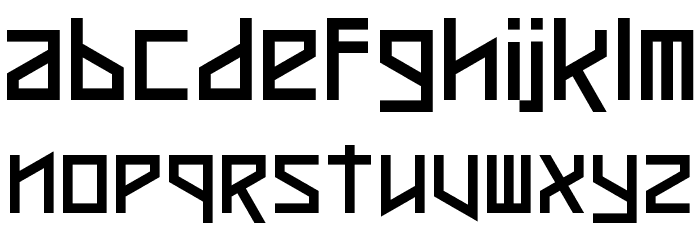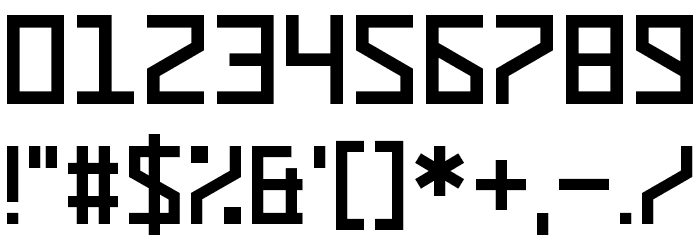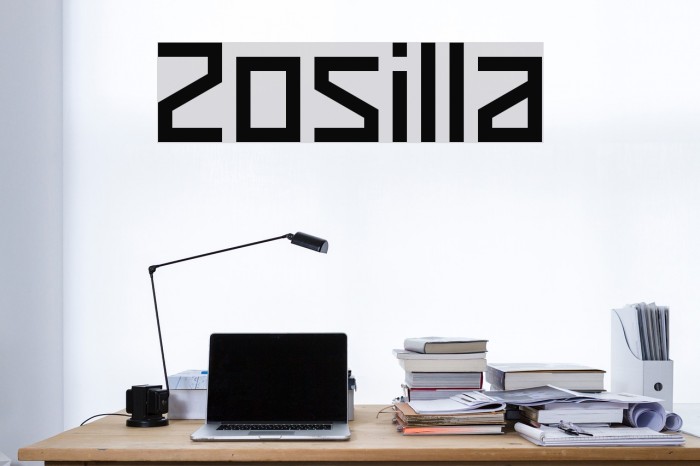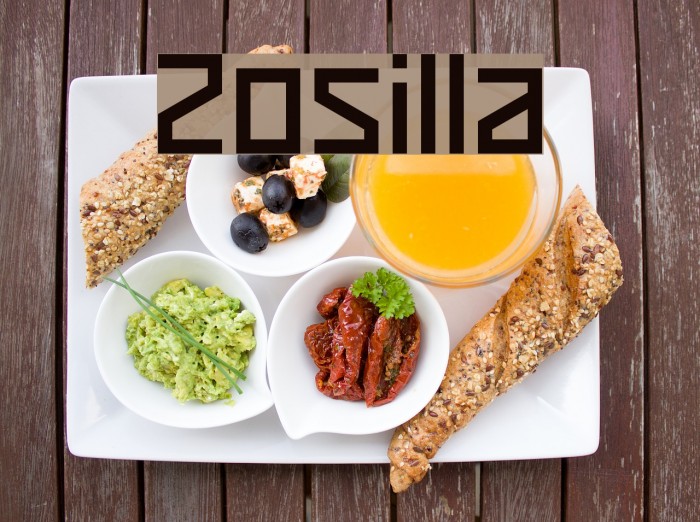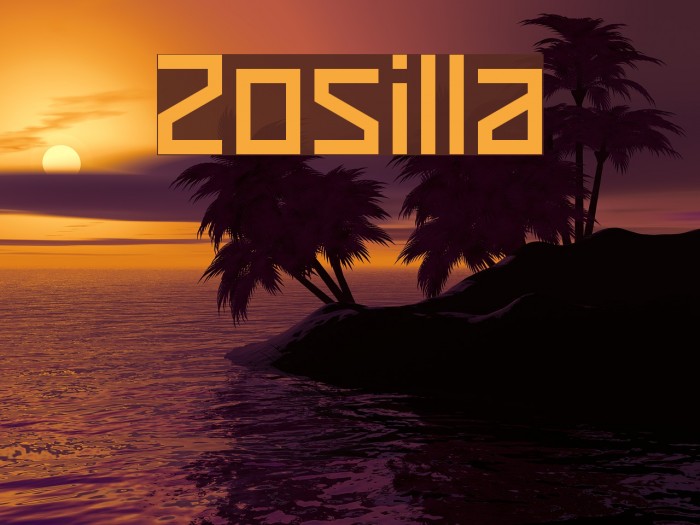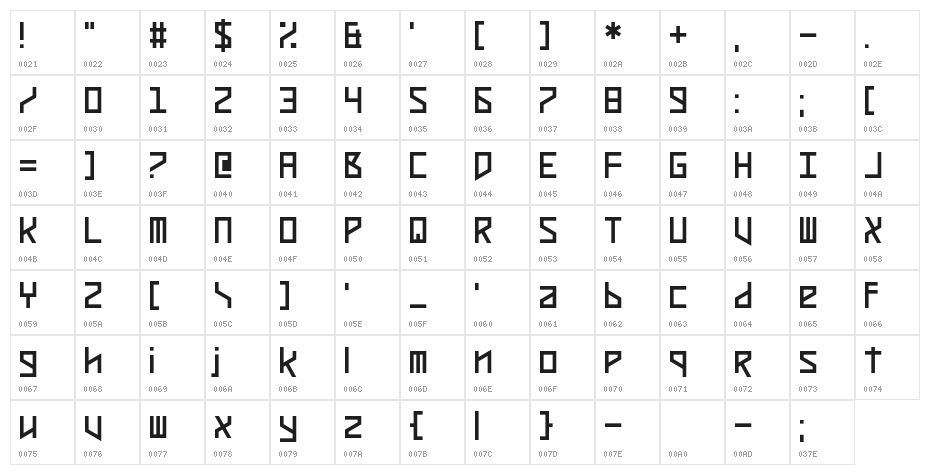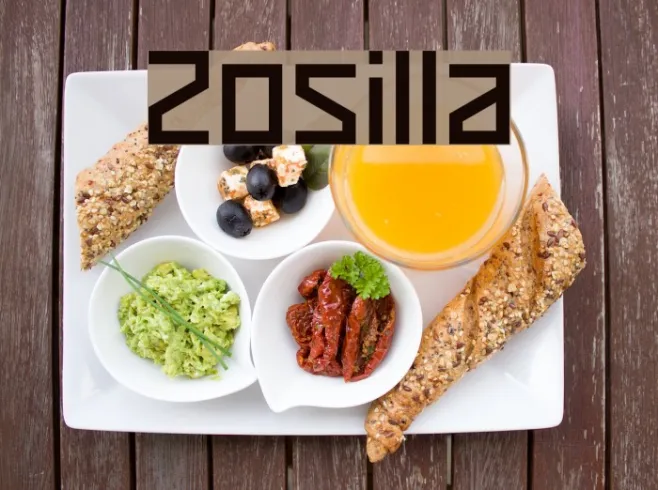
Zosilla Font
This font features a bold, geometric design with sharp angles and a futuristic aesthetic. Each character is constructed with straight lines and precise angles, giving it a highly structured and modern appearance. The uppercase and lowercase letters maintain a consistent style, with the lowercase offering a slightly more compact form. Numbers and special characters follow the same geometric theme, ensuring uniformity across all glyphs. The font's unique style makes it stand out, ideal for projects that require a modern and edgy look. Its boldness and distinct character shapes make it suitable for attention-grabbing headlines or logos.
A bold, geometric font with a futuristic and structured design.
- Proposed Projects: Ideal for sci-fi themed projects, modern branding, tech-related designs, and eye-catching headlines.